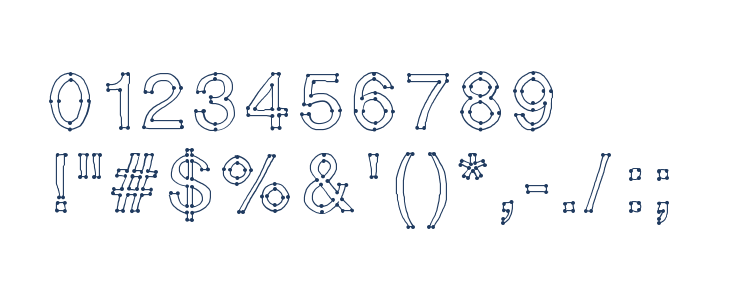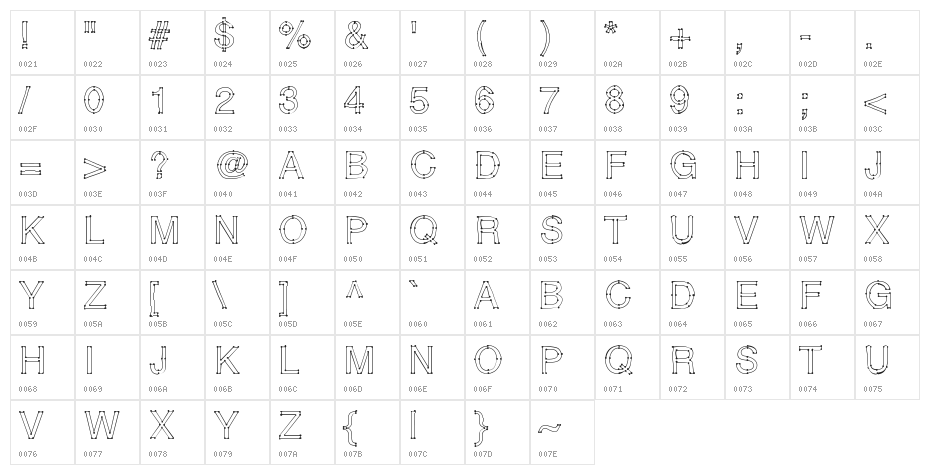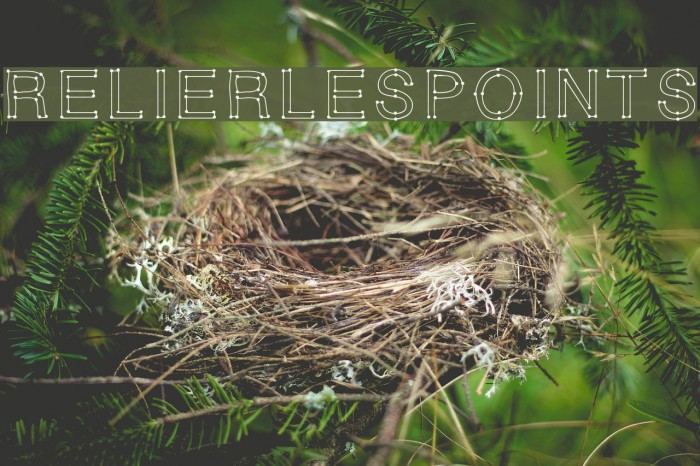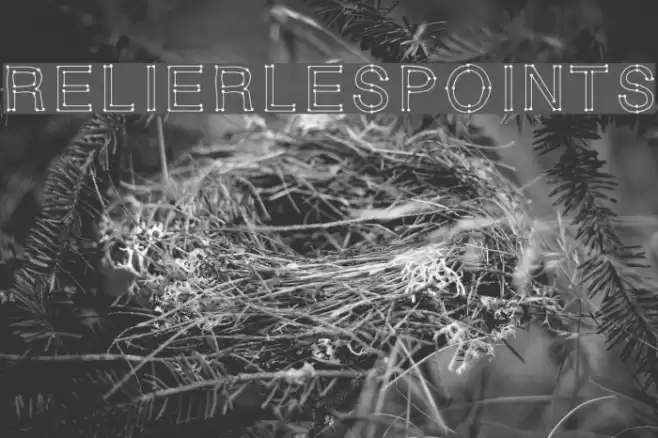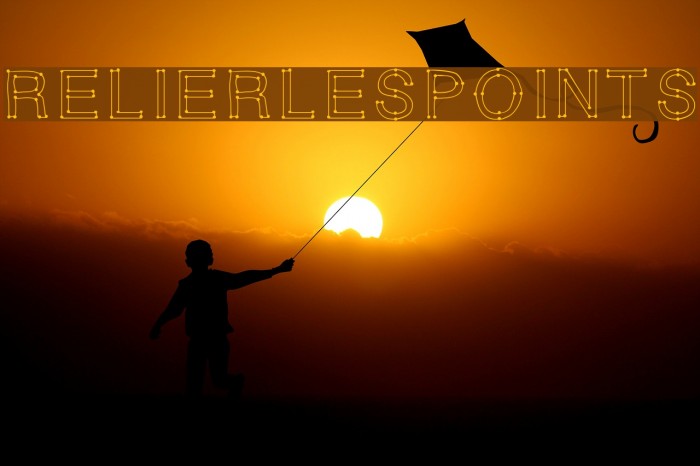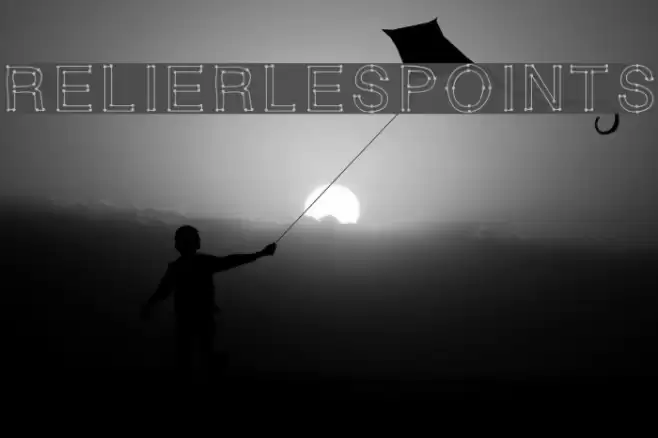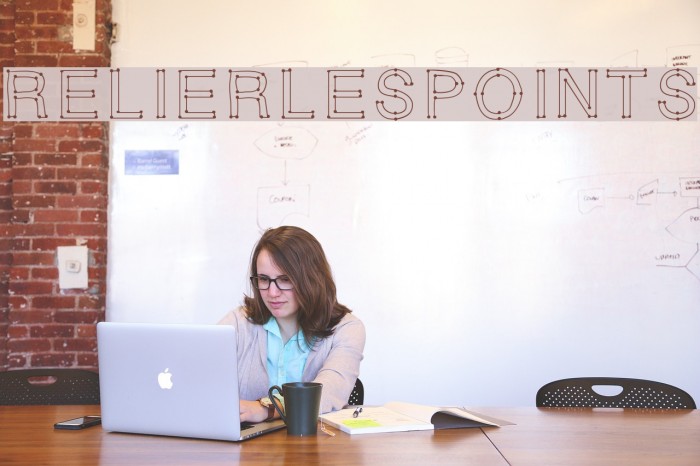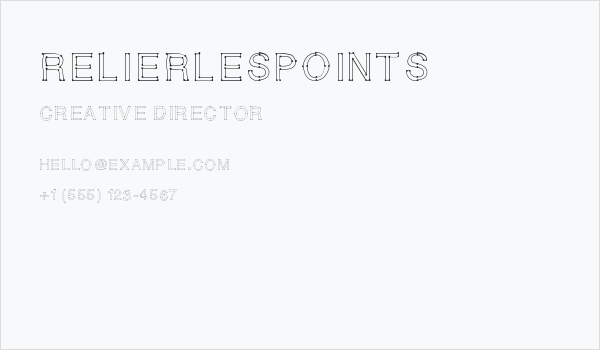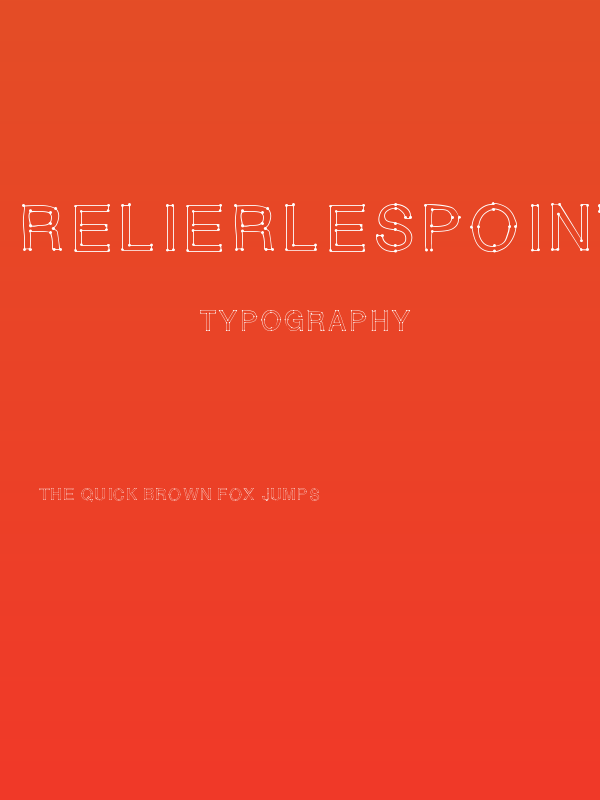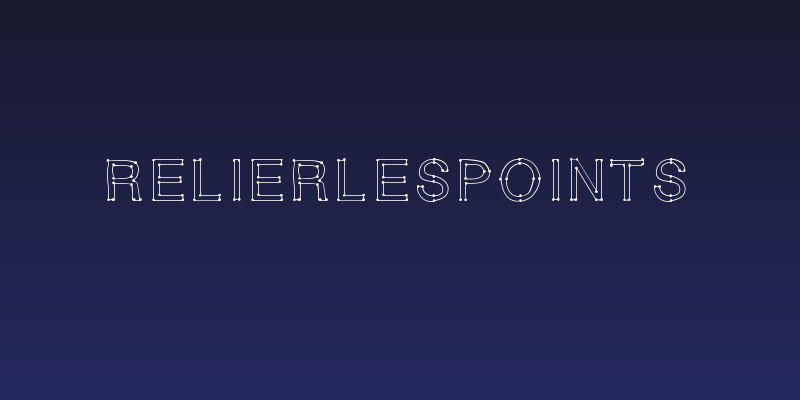
RELIERLESPOINTS Font
RELIERLESPOINTS Description
This font features a unique, playful design that resembles a connect-the-dots puzzle. Each character is outlined with small dots connected by thin lines, creating a whimsical and engaging appearance. The uppercase and lowercase letters maintain a consistent style, with rounded edges and a uniform stroke width. Numbers and special characters follow the same dotted pattern, ensuring cohesion across all elements. The font's distinct style makes it stand out, offering a creative twist on traditional letterforms. Its design is both modern and nostalgic, evoking a sense of childhood games while maintaining a clean and structured look.
Overall StylePlayful, Modern
Proposed ProjectsIdeal for children's books, educational materials, playful branding, and creative posters.